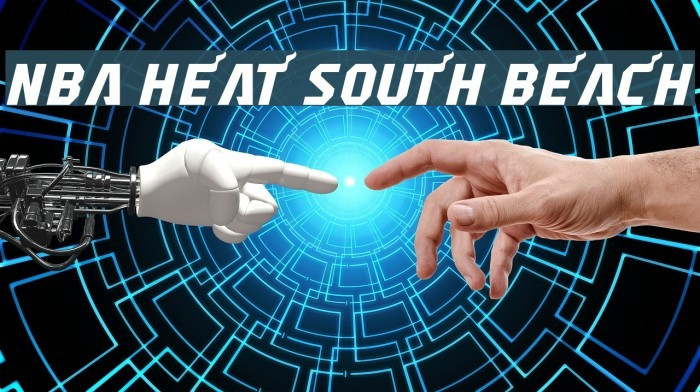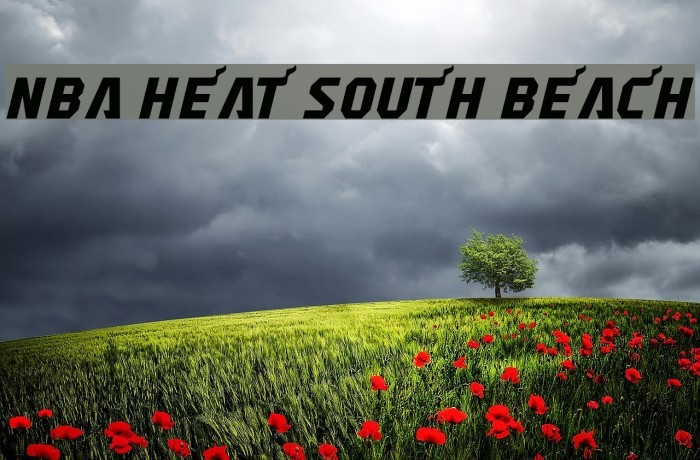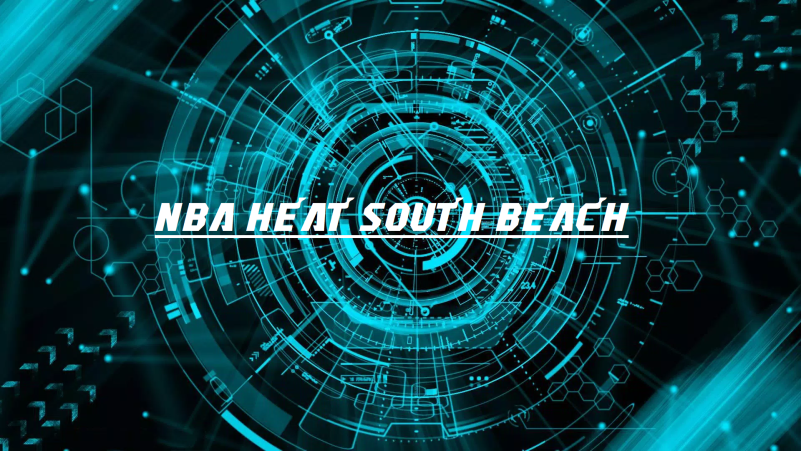
NBA Heat South Beach Font, This bundle features strong, confident and powerful typefaces designed to work great with sports logos, club branding, apparel applications, labels and more.
NBA Heat South Beach Font
| Classification: | Display Fonts, Stencil Fonts, Techno / Futuristic Fonts |
NBA Heat South Beach